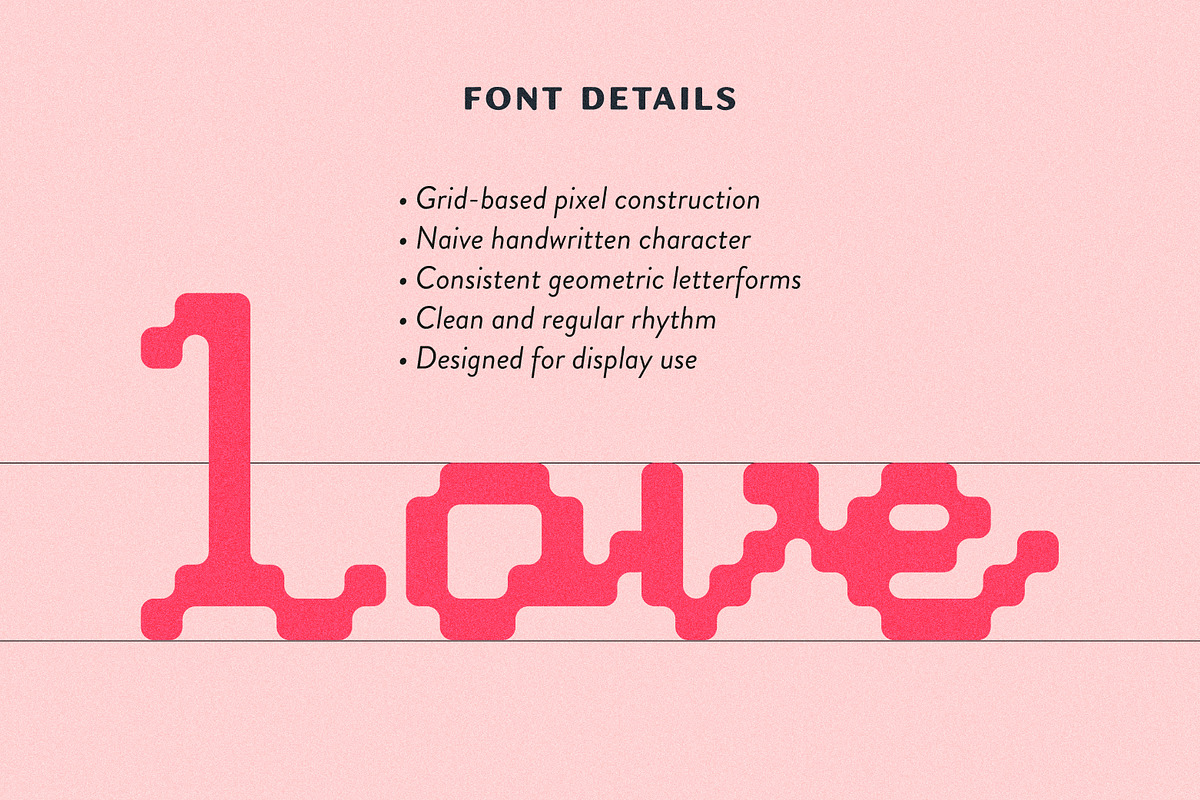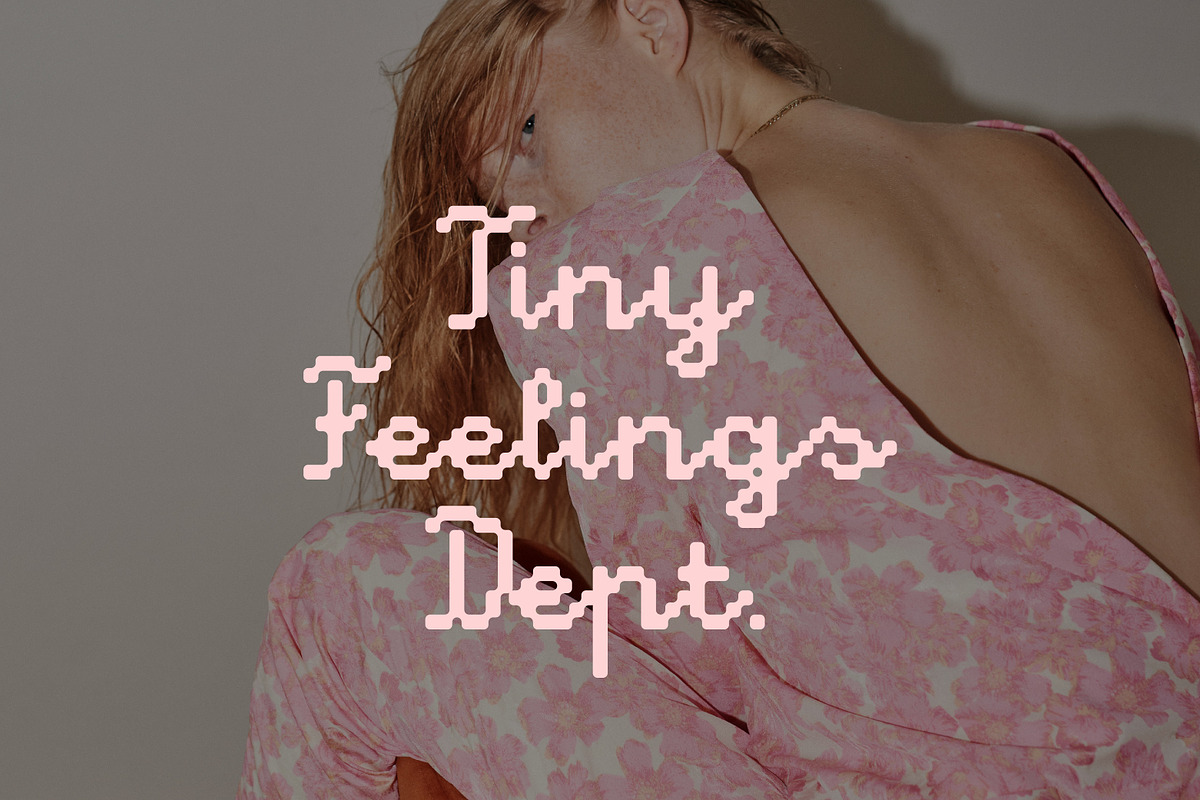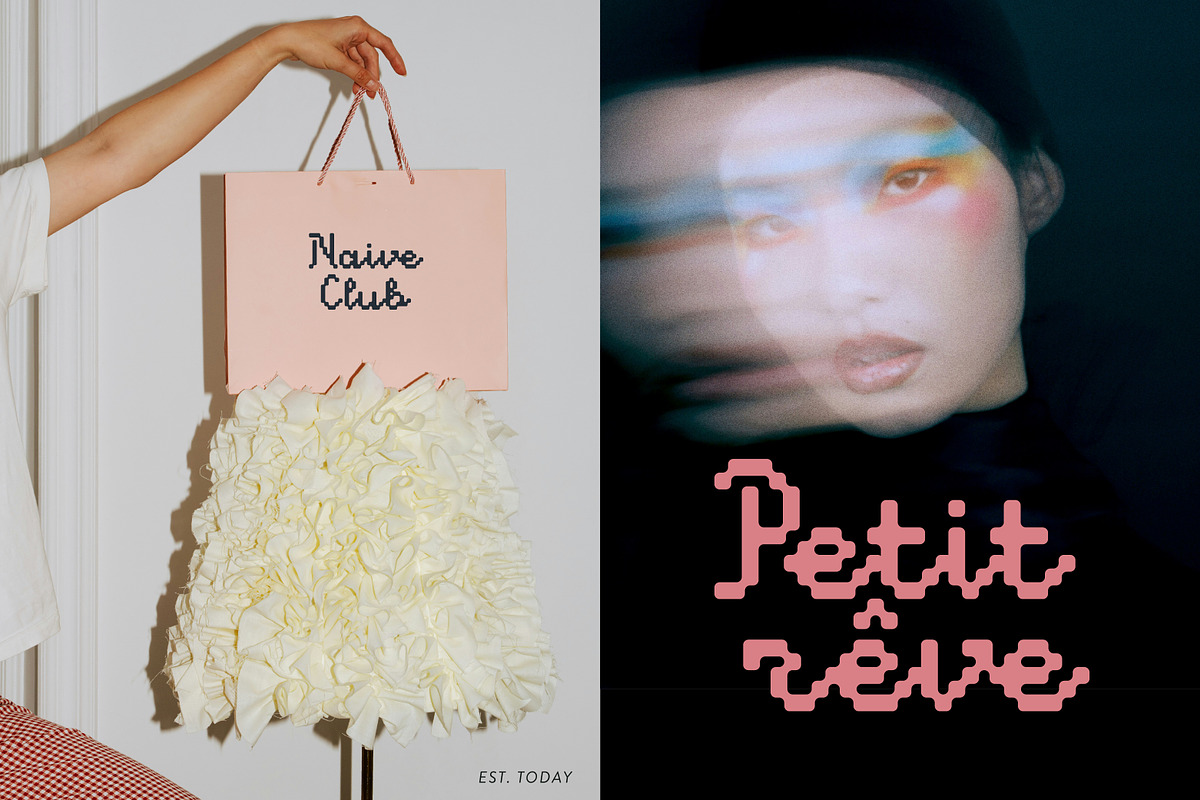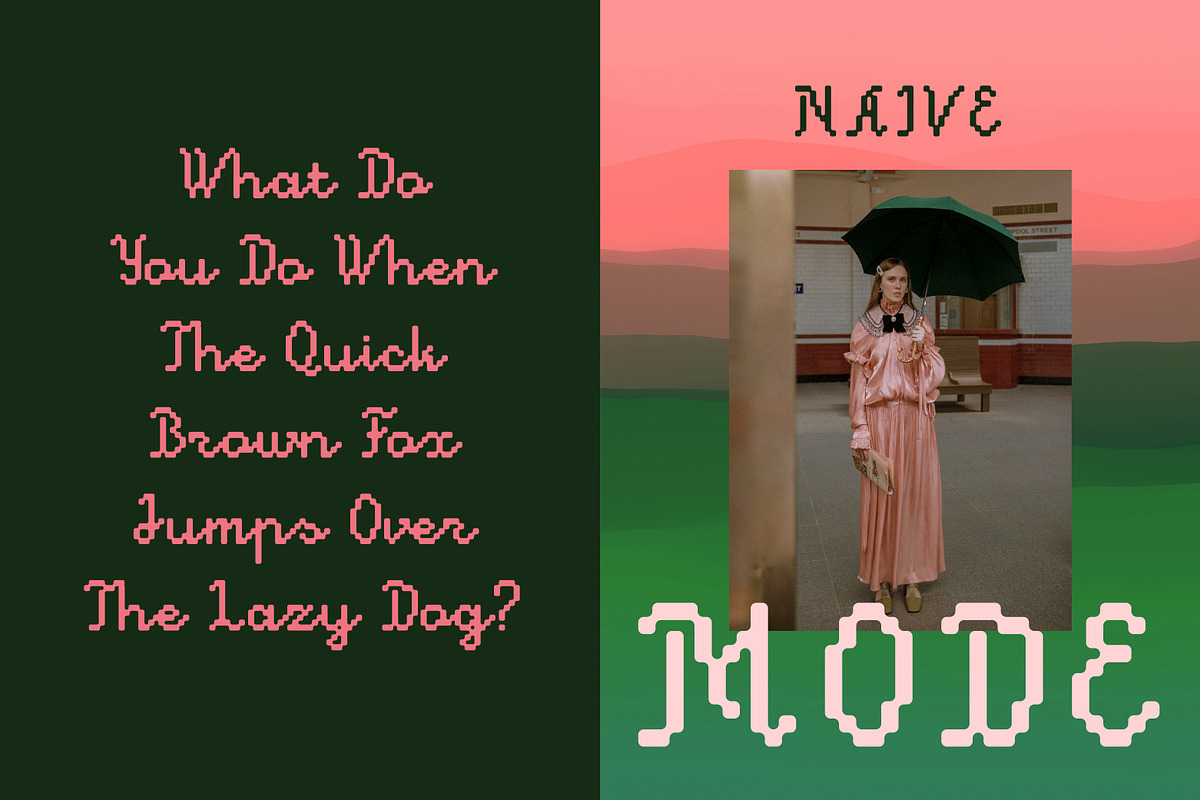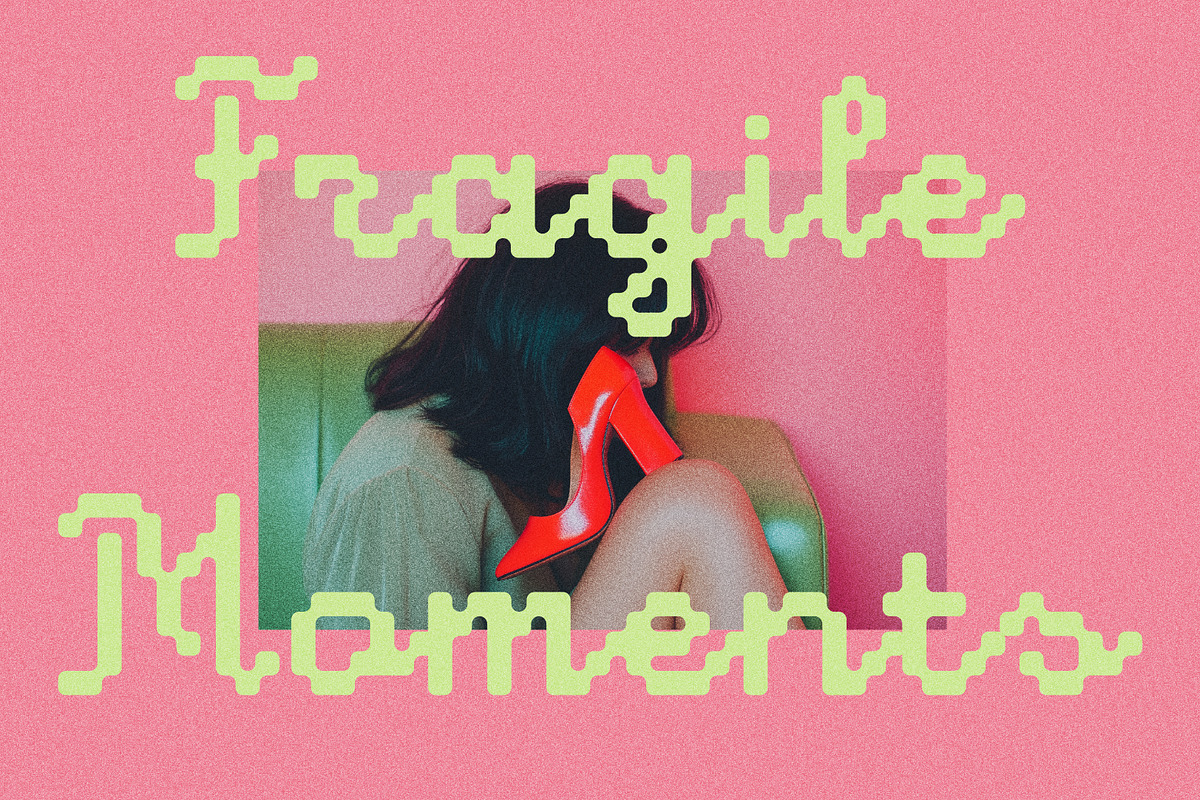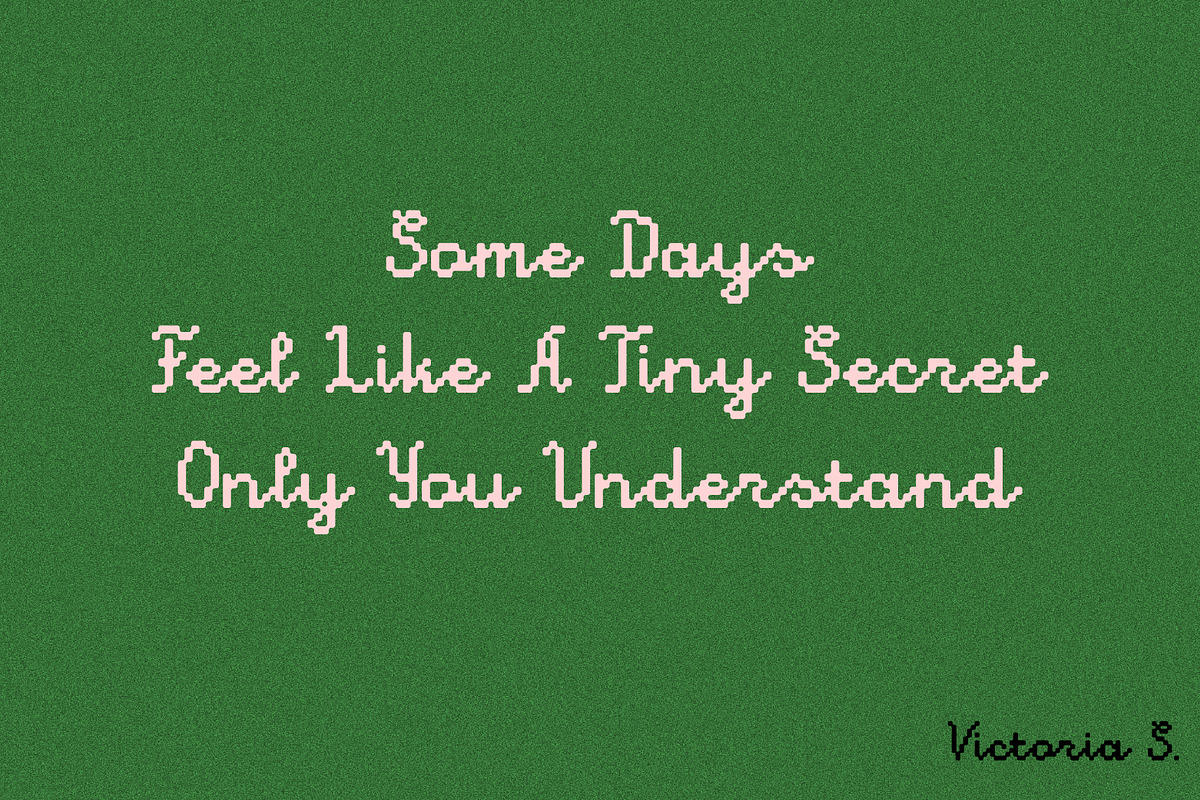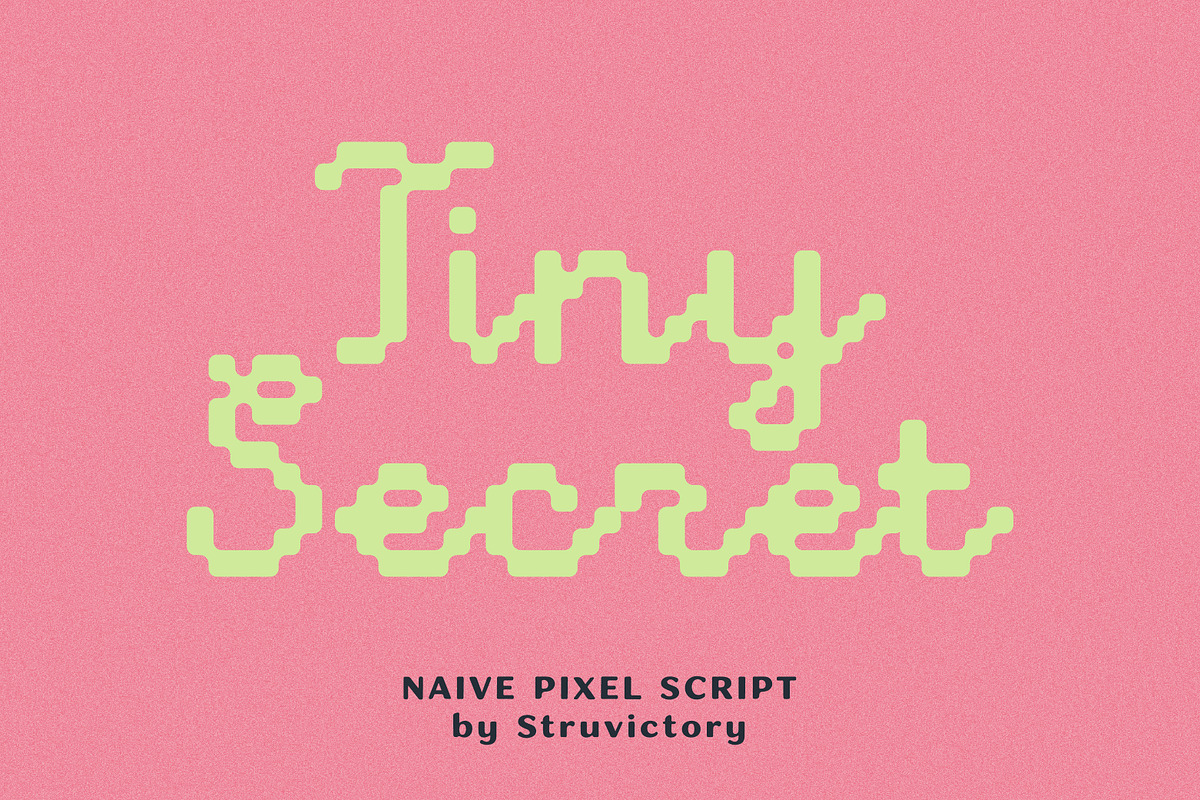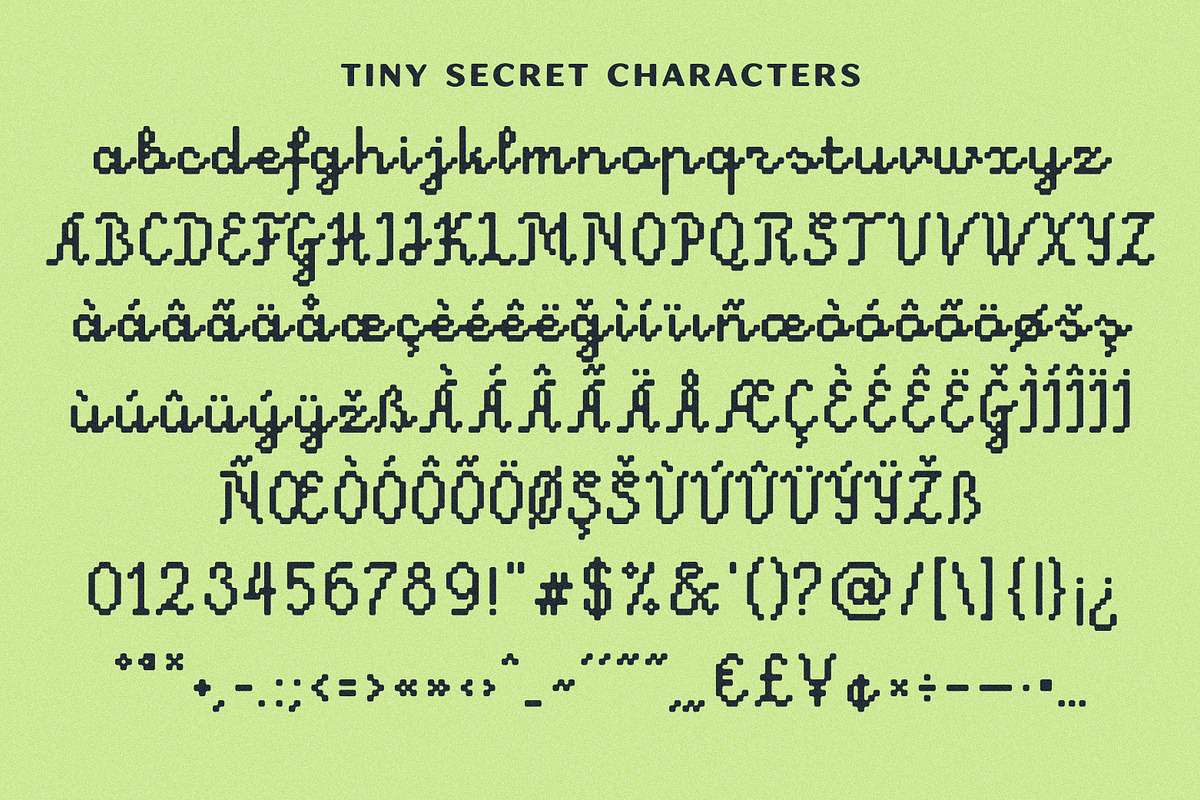
Tiny Secret Naive Pixel Art Script
Tiny Secret is a playful naive pixel font with a soft, charming character. Built on a simple grid system, its letters combine pixel-inspired construction with a light handwritten feel. The shapes are slightly quirky yet consistent, giving the font a distinctive personality while keeping a clear and regular rhythm. Inspired by zine culture, diary notes and indie fashion graphics, Tiny Secret feels both nostalgic and contemporary. It works best in display sizes and is perfect for posters, merch, branding, packaging, social media graphics and creative projects that need a cute, expressive touch.